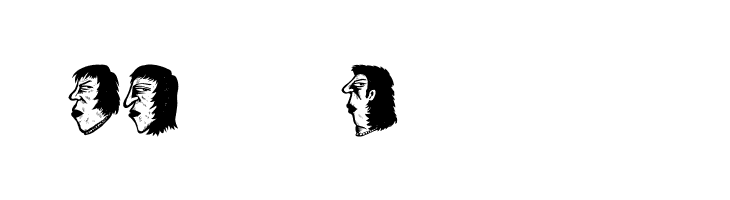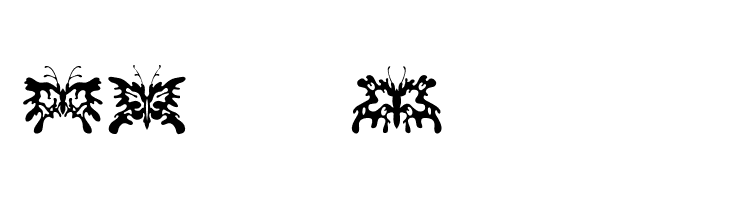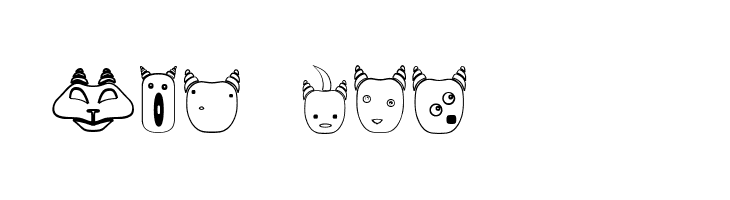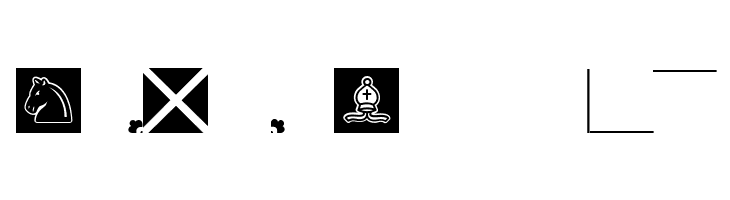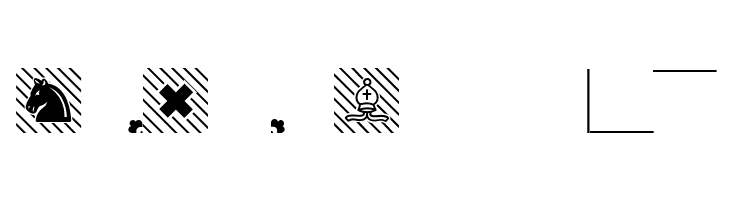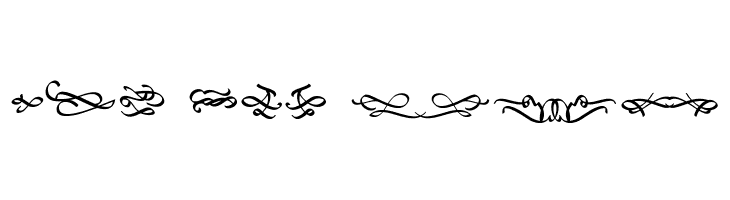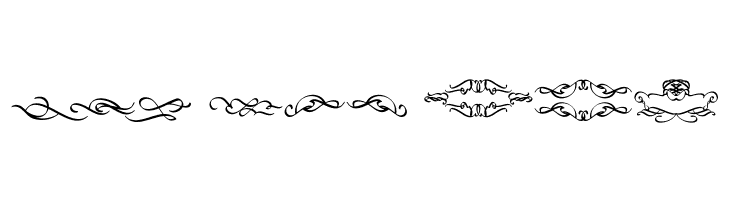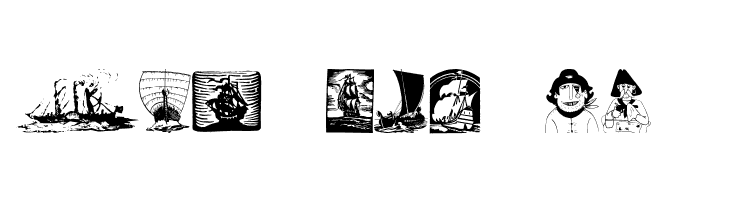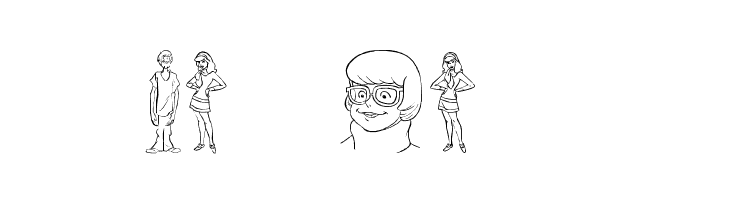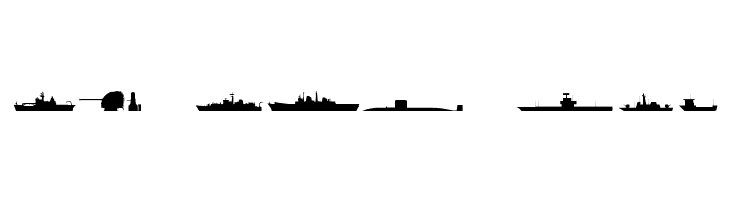
A rugged, hand-drawn font with bold, textured outlines.
Ornamental symbol font with diverse decorative motifs.
A decorative font with abstract, tribal-inspired designs and intricate patterns.
An abstract, artistic font with bold, silhouette-like characters.
An abstract, geometric font with sharp angles and fragmented shapes.
Motorsport-themed dingbat font with Formula 1 icons and symbols.
A geometric, modern font with consistent stroke width and sharp angles.
A flowing, elegant script font with intricate loops and curves.
Ornate floral decorative font with detailed botanical elements.
Minimalist animal illustrations form each character in a decorative, sketch-like style.
Ornate arrow symbols in bold quatrefoil frames.
A versatile set of bold, monochromatic symbols depicting combat, nature, and abstract themes.
A decorative icon font of bird silhouettes and related imagery.
An abstract, artistic design with fractal-like patterns.
A bold, decorative symbol set of geometric and ornamental frames.
Ornamental frame-based decorative font with intricate flourishes.
Elegant, swirling decorative line ornaments.
A playful font with letters and numbers integrated into bear designs.
A decorative font featuring stylized faces for each character, perfect for artistic projects.
Elaborate, pictorial font with fantasy illustrations forming each character.
Illustrative font with fantasy-themed scenes for each character.
A pictorial dingbat set featuring dramatic fantasy illustrations.
A decorative font composed entirely of assorted star and burst shapes.
Hand-drawn cartoon icon font with playful, irregular lines.
A decorative font with whimsical, hand-drawn illustrations in each character.
An elegant script font with intricate swirls and decorative flourishes.